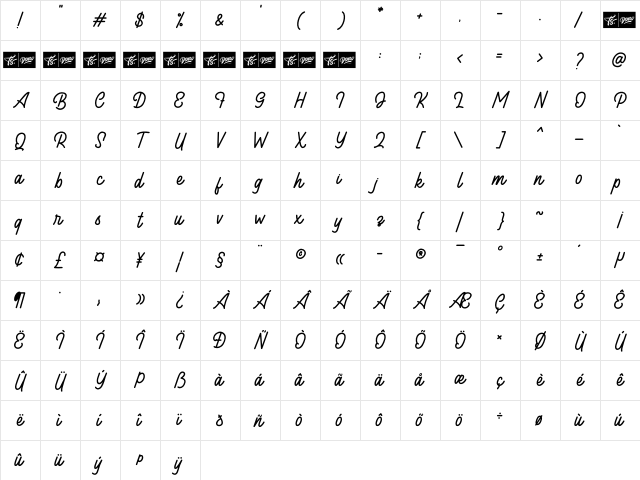
Arealand Regular Free Font
Arealand Regular
Designer: Fahrul Arjianto
Design Context for Arealand
Arealand is a composed and adaptable typeface that performs quietly and consistently across a wide range of design contexts.